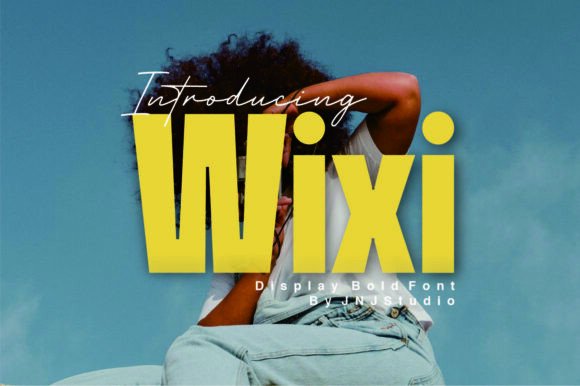
Wixi Font: The Ultimate Bold Display Font for High-Impact Designs
In the world of typography, fonts play a crucial role in conveying the tone and personality of a design. When it comes to making a statement, a bold and attention-grabbing font is essential. This is where Wixi Font comes in – a modern, energetic, and confident display font designed to elevate your designs to the next level. In this article, we’ll explore the features, benefits, and uses of Wixi Font, and why it’s the perfect choice for projects that demand bold expression with a touch of uniqueness.
What is Wixi Font?
Wixi Font is a bold, attention-grabbing display font that exudes energy and confidence. Its thick strokes, modern curves, and playful edge make it an ideal choice for headlines, posters, branding, and digital media. With its contemporary style, Wixi Font balances clarity and creativity, making it perfect for projects that require a strong personality.
Key Features of Wixi Font
- Bold and Attention-Grabbing: Wixi Font is designed to make a statement with its thick strokes and modern curves.
- Playful Edge: The font’s playful edge adds a touch of uniqueness to any design.
- Contemporary Style: Wixi Font’s contemporary style balances clarity and creativity, making it perfect for modern designs.
- High Impact: The font delivers high impact and strong personality, making it ideal for headlines, posters, and branding.
Uses of Wixi Font
Wixi Font is a versatile font that can be used in a variety of design projects, including:
- Headlines: Wixi Font is perfect for headlines that require a bold and attention-grabbing font.
- Posters: The font’s high impact and strong personality make it ideal for posters that need to grab attention.
- Branding: Wixi Font can be used for branding projects that require a modern and energetic font.
- Digital Media: The font is suitable for digital media, including social media graphics, website headers, and more.
Benefits of Using Wixi Font
Using Wixi Font in your design projects offers several benefits, including:
- Increased Visibility: Wixi Font’s bold and attention-grabbing design ensures that your message gets noticed.
- Improved Brand Identity: The font’s modern and energetic style can help create a strong brand identity.
- Enhanced Creativity: Wixi Font’s playful edge and contemporary style can add a touch of uniqueness to your designs.
- Versatility: The font can be used in a variety of design projects, making it a valuable addition to your font library.
Tips for Using Wixi Font Effectively
To get the most out of Wixi Font, follow these tips:
- Use it Sparingly: Wixi Font is a bold font, so use it sparingly to avoid overwhelming your design.
- Pair it with Other Fonts: Pair Wixi Font with other fonts to create a unique and interesting contrast.
- Adjust the Size: Experiment with different font sizes to find the perfect balance for your design.
- Play with Colors: Wixi Font looks great in bold colors, so experiment with different colors to find the perfect match.
Wixi Font is a bold, attention-grabbing display font that is perfect for projects that demand bold expression with a touch of uniqueness. Its thick strokes, modern curves, and playful edge make it an ideal choice for headlines, posters, branding, and digital media. With its contemporary style and high impact, Wixi Font is sure to elevate your designs to the next level.
- What is Wixi Font? Wixi Font is a bold, attention-grabbing display font designed to make a statement.
- What is Wixi Font used for? Wixi Font is ideal for headlines, posters, branding, and digital media.